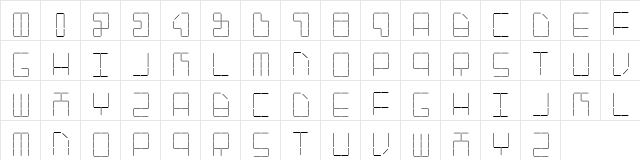
AI stapler Regular Font Preview
AI stapler Regular
Design Context for AI stapler Typeface
AI stapler is a composed and adaptable typeface that performs quietly and consistently across a wide range of design contexts.